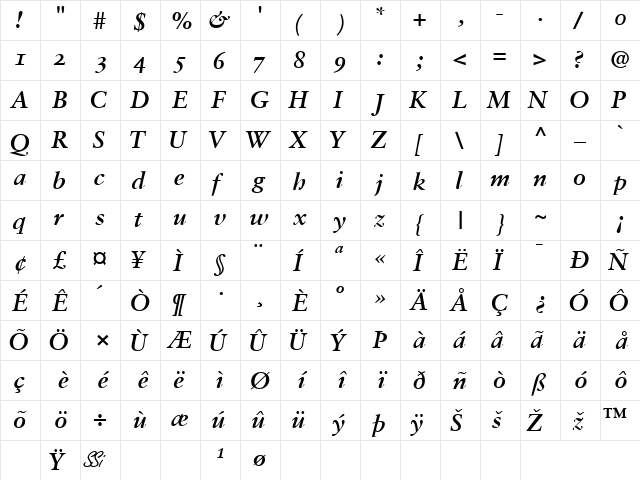
GaramondRetrospectiveOSSSK Bold Italic
Design Context for GaramondRetrospectiveOSSSK Typeface
GaramondRetrospectiveOSSSK wears its vintage influences proudly, with letterforms that recall mid-century signage, classic packaging, and nostalgia-driven design. Its italic angle brings a sense of urgency and motion to the letterforms. The heavy weight commands attention and anchors typographic hierarchies.
Ideal for diner signage, record shop branding, 70s/80s-themed projects, and heritage product labels.
Font Pairing: Combine GaramondRetrospectiveOSSSK with a simple slab or neutral sans — period-accurate companions reinforce the vintage feel without competing for attention.
Pro Tip: Lean into GaramondRetrospectiveOSSSK's period character by pairing it with aged paper textures, muted colour palettes, and vintage illustration styles.